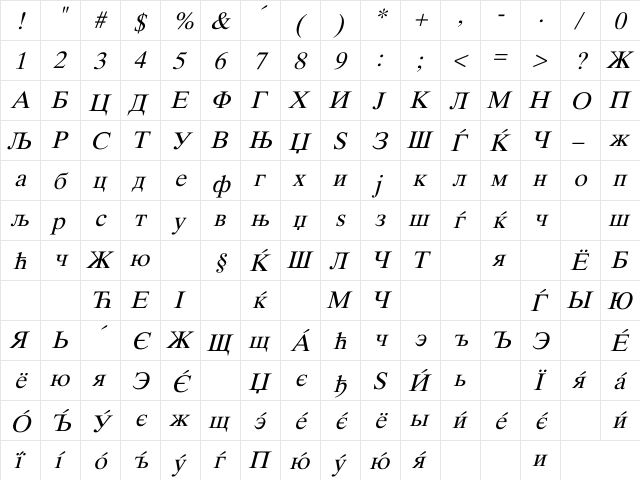
MKDTIMES Italic
Design Context for MKDTIMES Typeface
MKDTIMES takes a measured approach to typography — its balanced proportions and neutral character make it a reliable workhorse for both digital and print work. The slanted form adds forward momentum and visual energy.